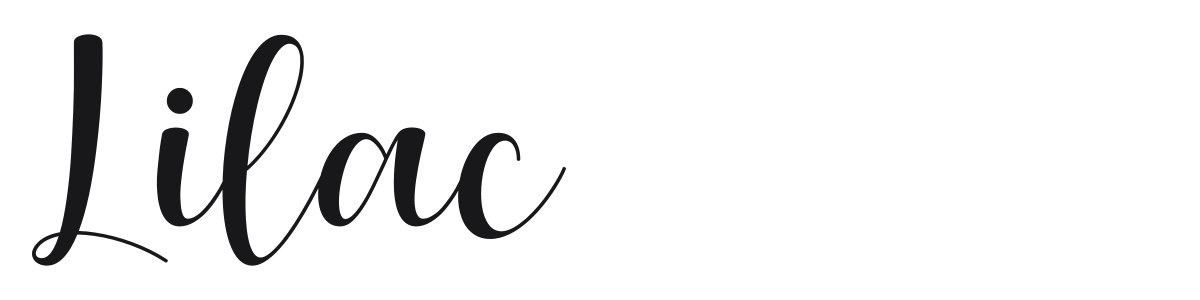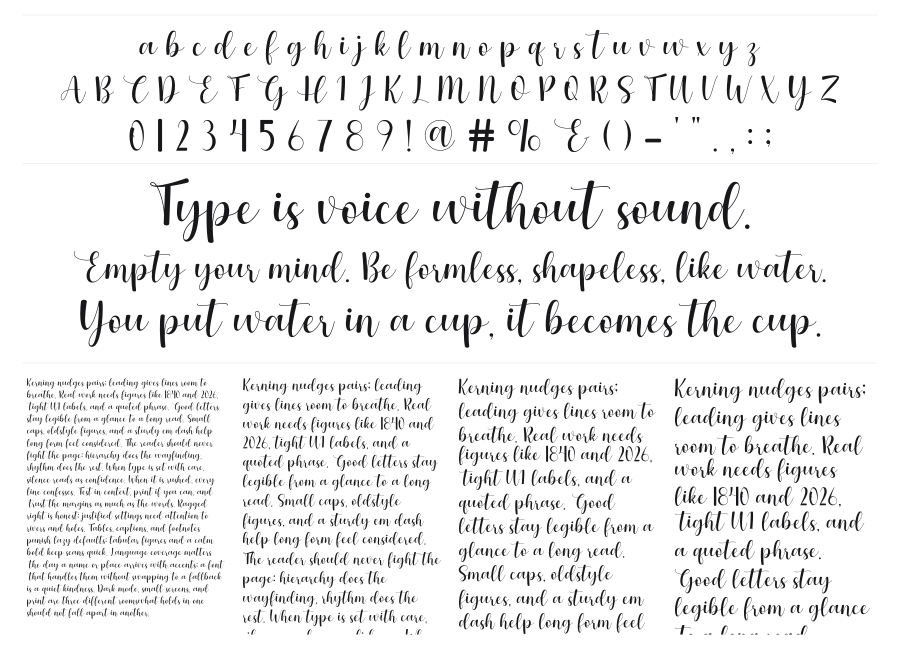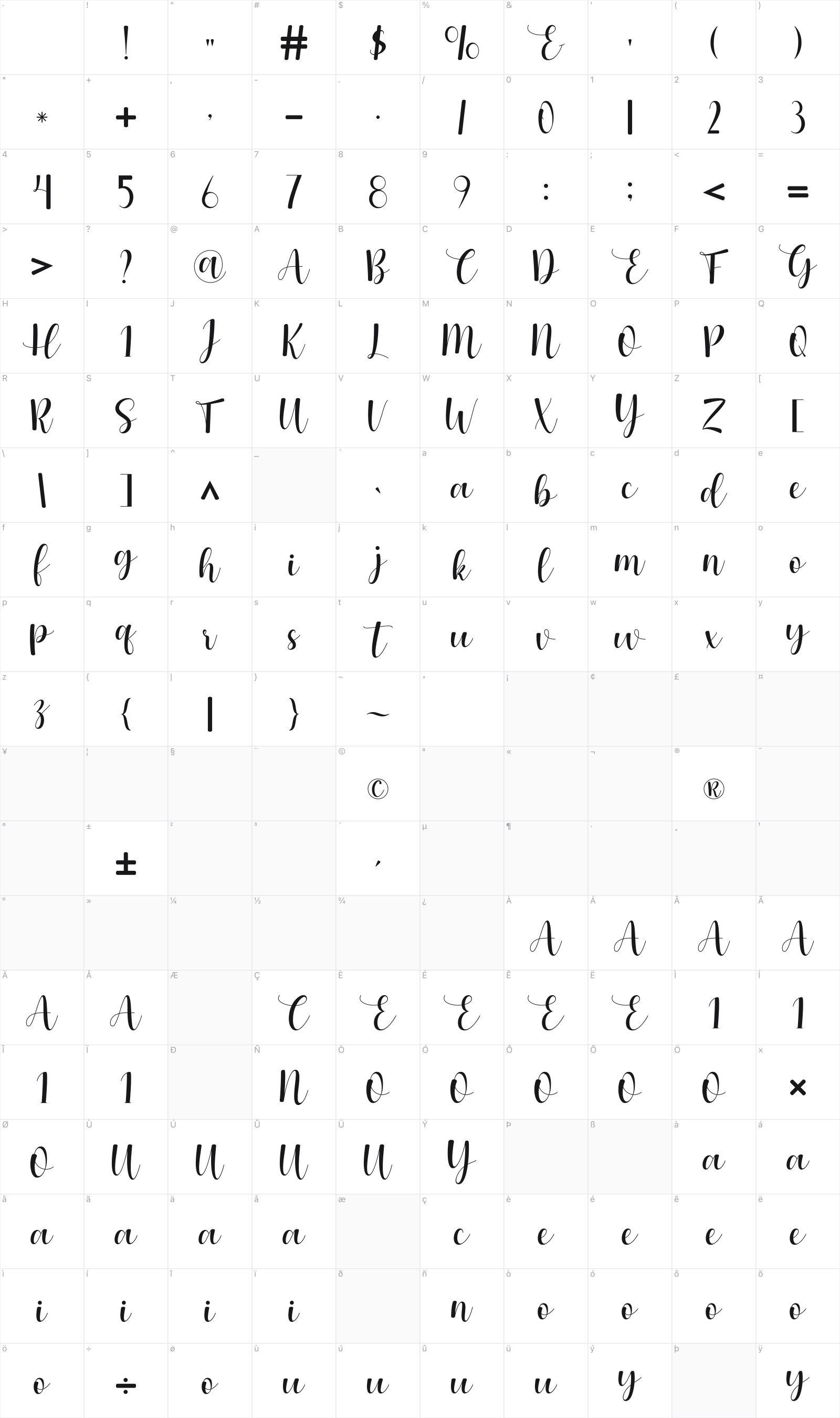
Lilac
Lilac is a flowing calligraphic script with lively bounce and high stroke contrast between thick stems and hairline curves. The generous looping ascenders and decorative swashes give it a romantic, handcrafted energy without feeling stiff. A go-to for wedding stationery, boutique branding, and anything that calls for elegant warmth.